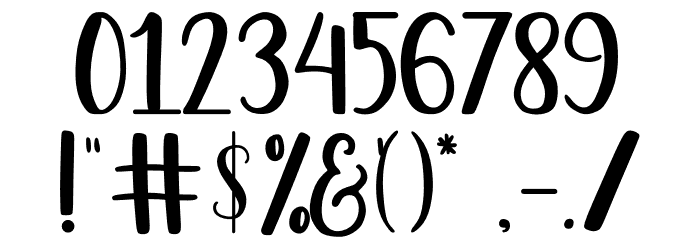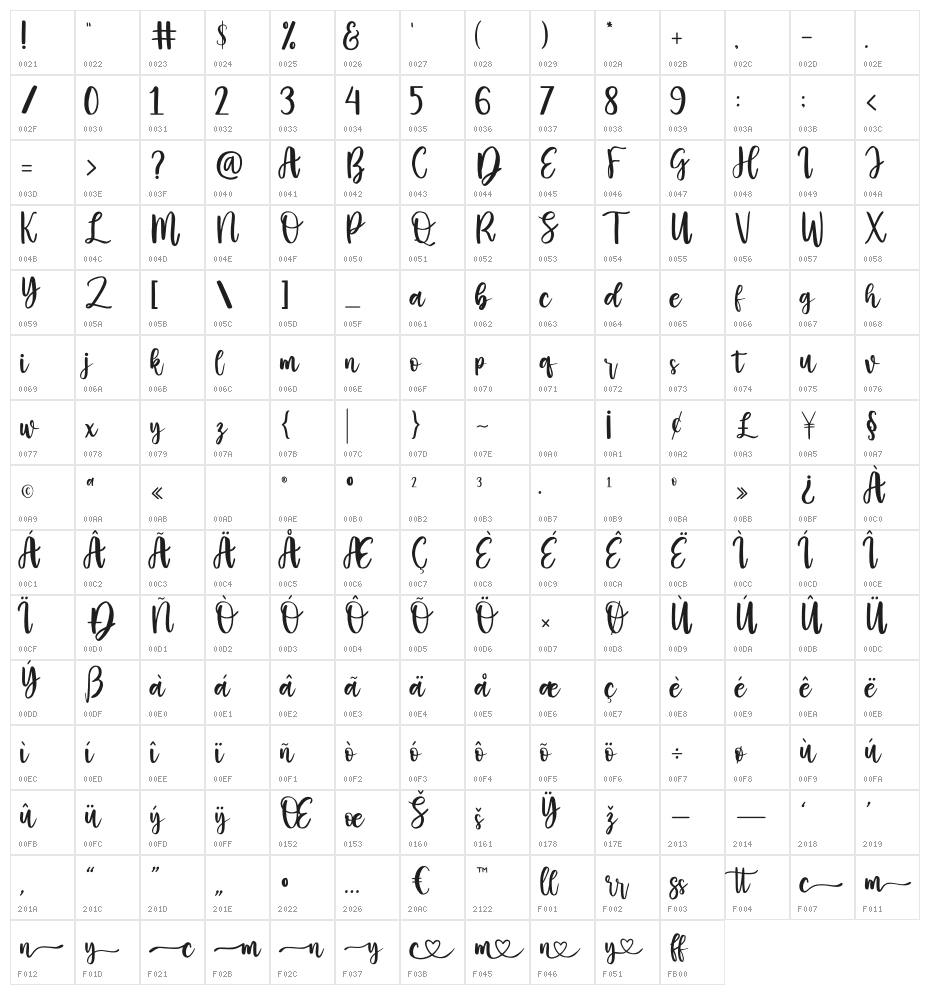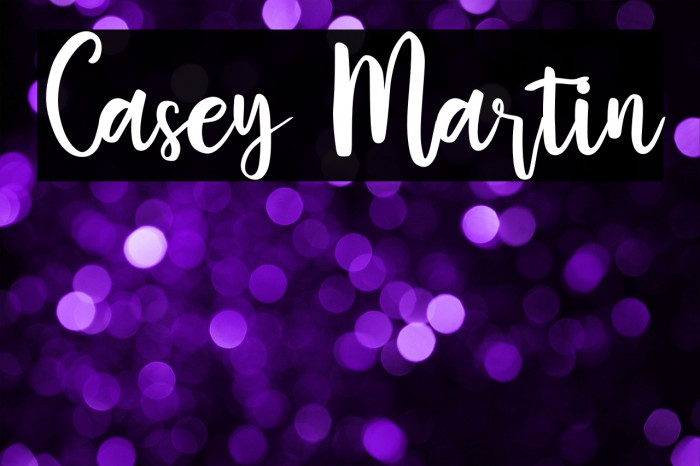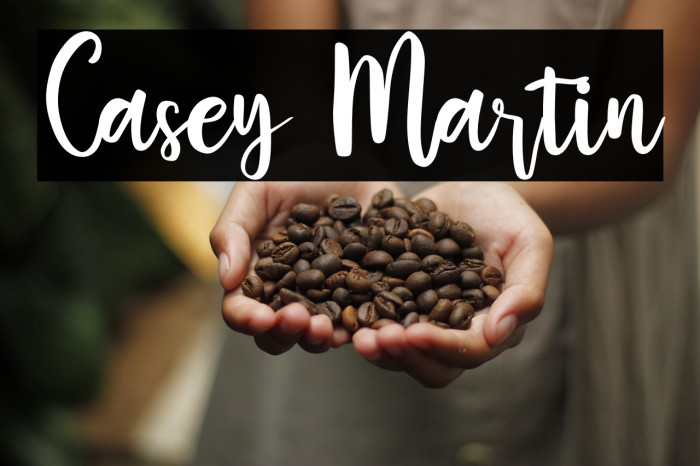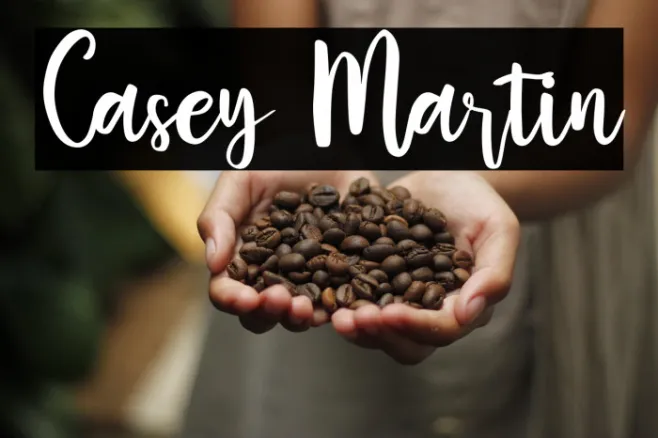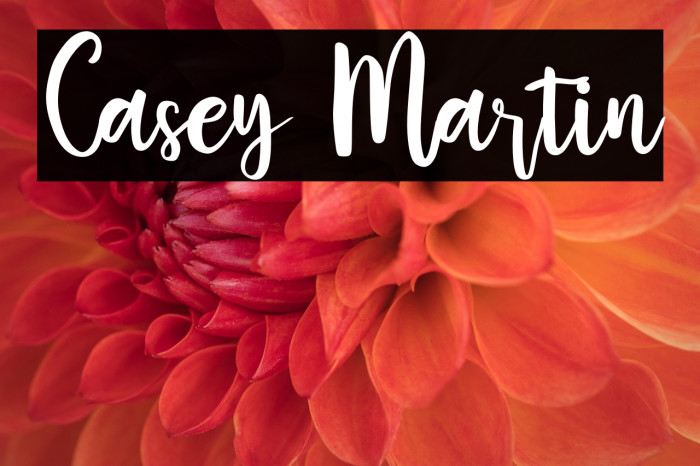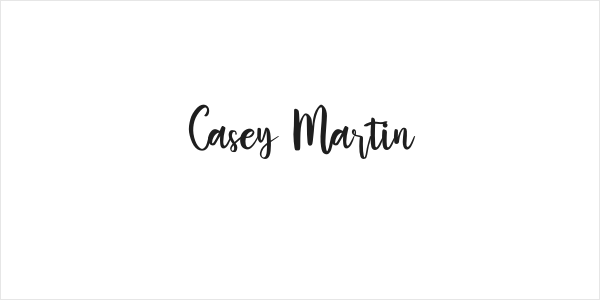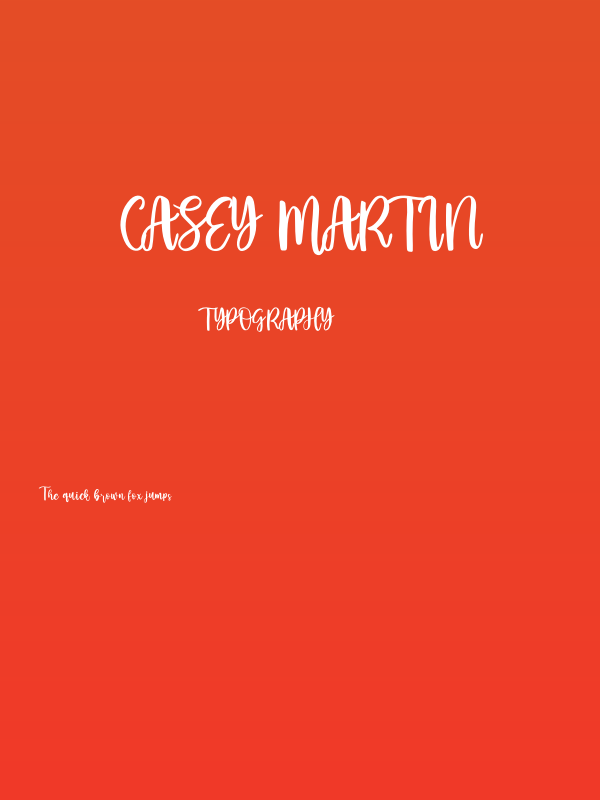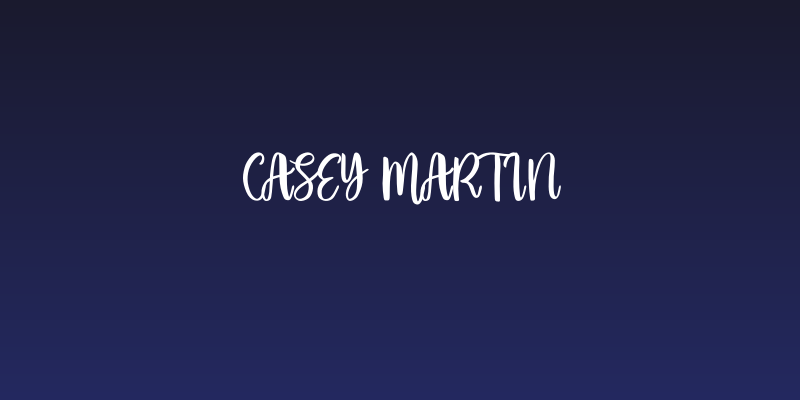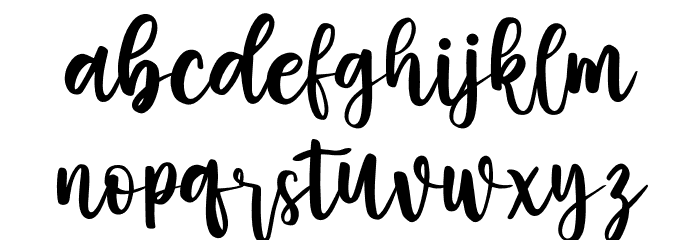
Casey Martin Font
Casey Martin Description
This font features a playful and energetic script style with a handwritten feel. The letters are characterized by fluid, flowing strokes that give it a lively and informal appearance. The uppercase letters are bold and expressive, while the lowercase letters maintain a consistent rhythm with rounded forms. The numerals are clear and easy to read, complementing the overall style. Special characters are included, maintaining the same playful aesthetic. This font is perfect for projects that require a personal touch or a creative flair.